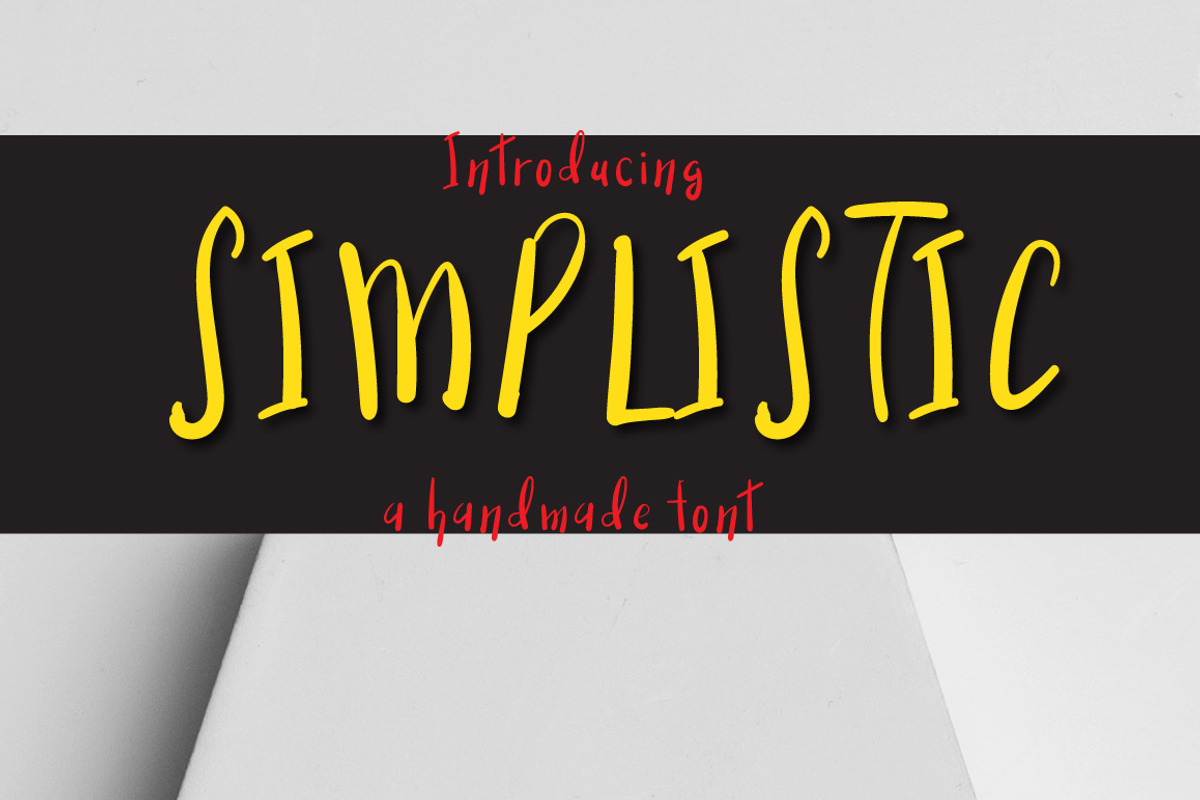
Simplistic typeface
Simplistic typeface has been carefully crafted to make your text look beautiful. With modern style this font is perfect for many different project ex: quotes, blog header, poster, wedding, branding, logo, fashion, apparel, letter, invitation, stationery, etc. FEATURES:Simplistic (OTF) Thanks for looking.
Why Simplistic typeface is worth a look
Simplistic typeface by Zmapist fits naturally into Branding, posters, packaging, typography.